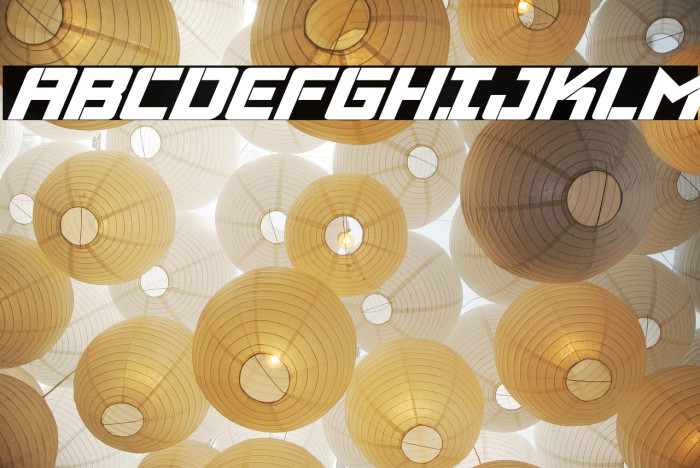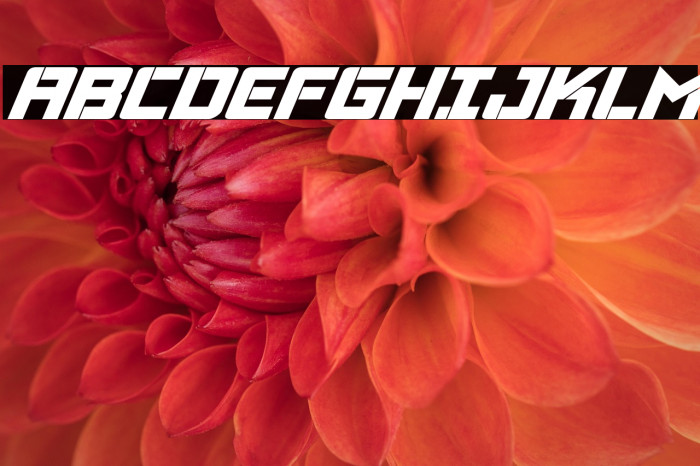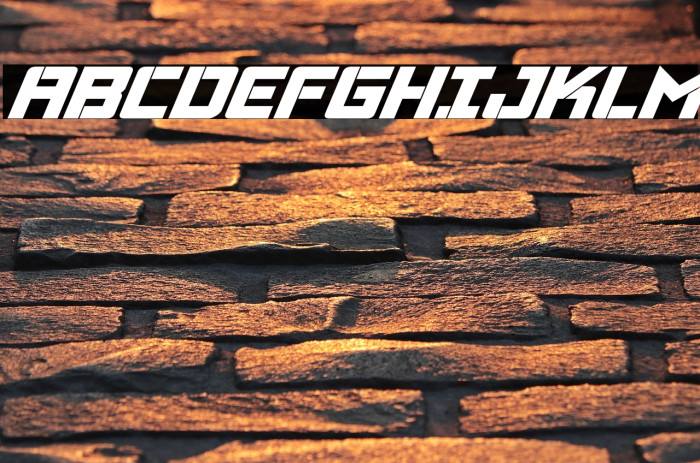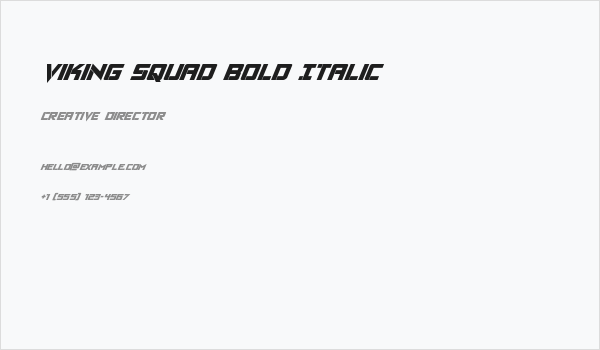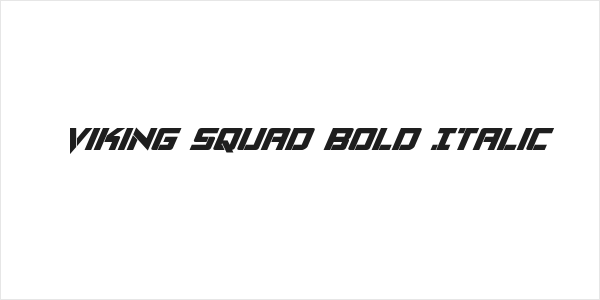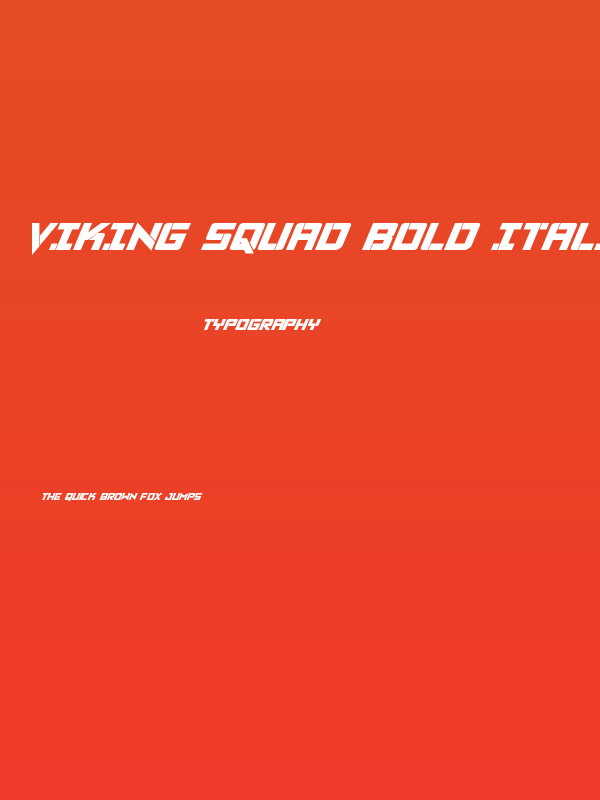
Viking Squad Bold Italic Font
Viking Squad Bold Italic Description
This font features a bold and italicized style with a strong, angular design. The characters are slanted, giving a sense of motion and dynamism. The strokes are thick and consistent, providing a robust and impactful appearance. The geometric shapes and sharp edges contribute to a modern and futuristic aesthetic. The font maintains a uniform width across all characters, ensuring a cohesive look. It is well-suited for attention-grabbing headlines and titles, where a bold statement is needed.
| Proposed Projects | Ideal for sports branding, video game titles, action movie posters, and dynamic logos. |